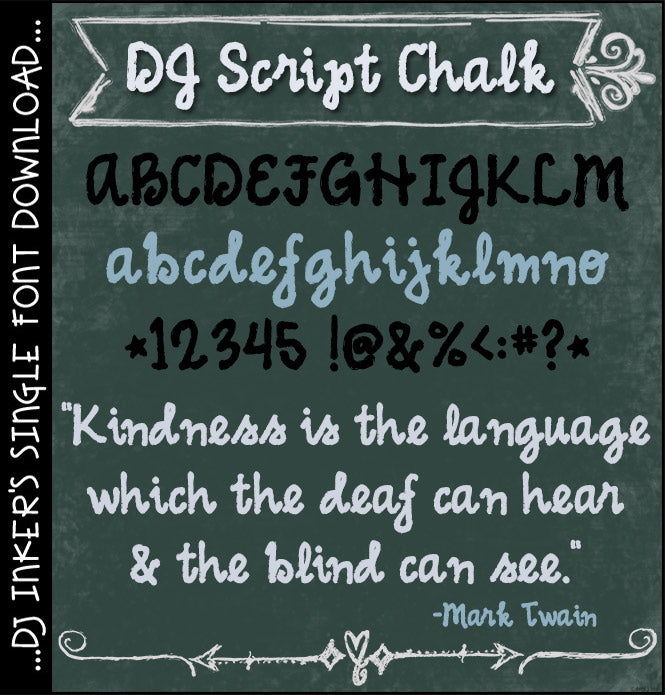
DJ Script Chalk Font Download
This lovely little chalkboard font will dress-up your dusty old lettering
with a nice, clean handwritten look. DJ Script Chalk is a bold, cursive
font (with a soft texture) that will be excellent for school, home, crafting
& more. Looks great in white or light chalky colors over dark backgrounds...
but this font does well in any color.